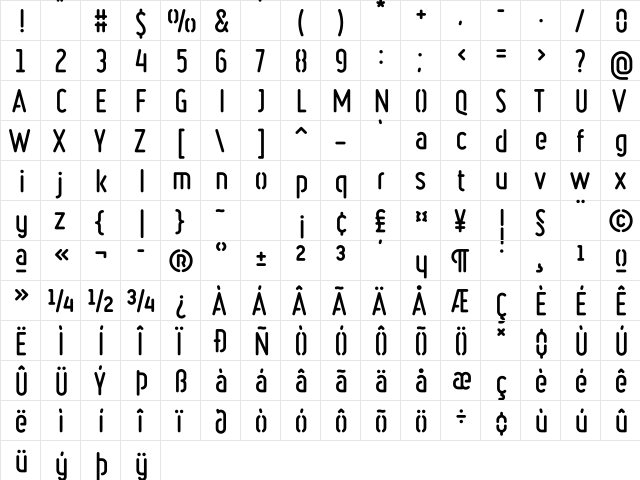
Ruler Stencil Bold
Design Context for Ruler Stencil Typeface
Ruler Stencil borrows the utilitarian aesthetic of stencil lettering, with its characteristic cutaways and no-frills construction lending an industrial edge. Its bold stroke weight gives it real presence on the page.
A strong choice for packaging that needs edge, warehouse aesthetics, and rough-and-ready visual identities.
Pro Tip: Use Ruler Stencil at large sizes on packaging, posters, or apparel where the stencil cutaways read clearly. Avoid small sizes where those gaps become visual noise.